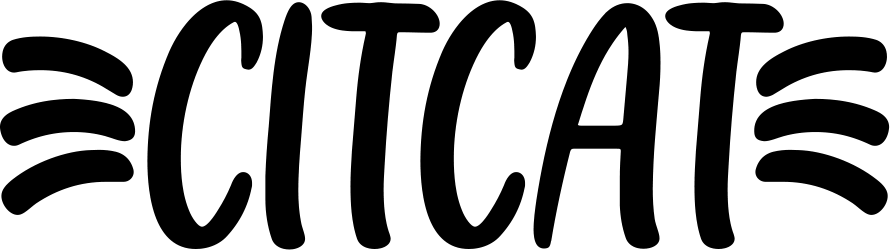
Citcat Font
The script font for today’s post is called Citcat and it contains a tiger mustache for the start and end of phrases. Citcat conveys a cheerful and playful sense to the reader. You can use this font for any children’s pro…
The script font for today’s post is called Citcat and it contains a tiger mustache for the start and end of phrases. Citcat conveys a cheerful and playful sense to the reader. You can use this font for any children’s product, book, movie titles, cartoon names, comic books, and zoo shows headlines. The characters are all caps.